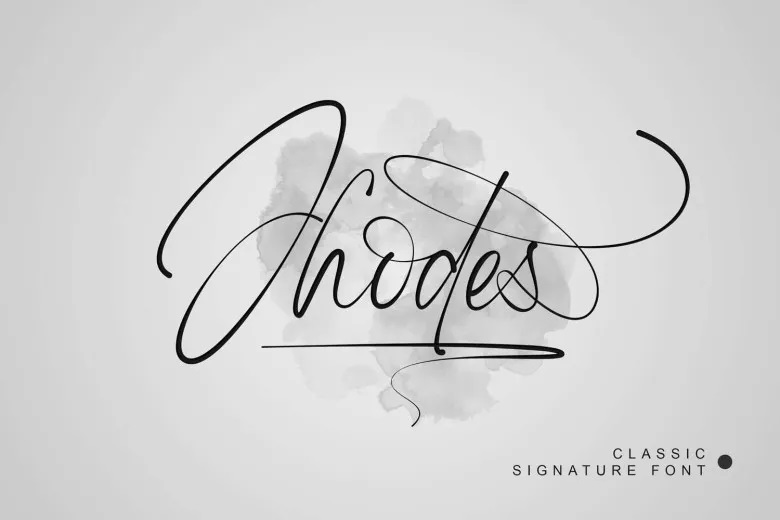
Jhodes Font
Jhodes Font is a beautiful signature font which is suitable for brand and logo, invitation, wedding, stationery, packaging, advertisement, social media post, packaging product, watermark, photography, special event or any other project.
Jhodes Signature Script Font